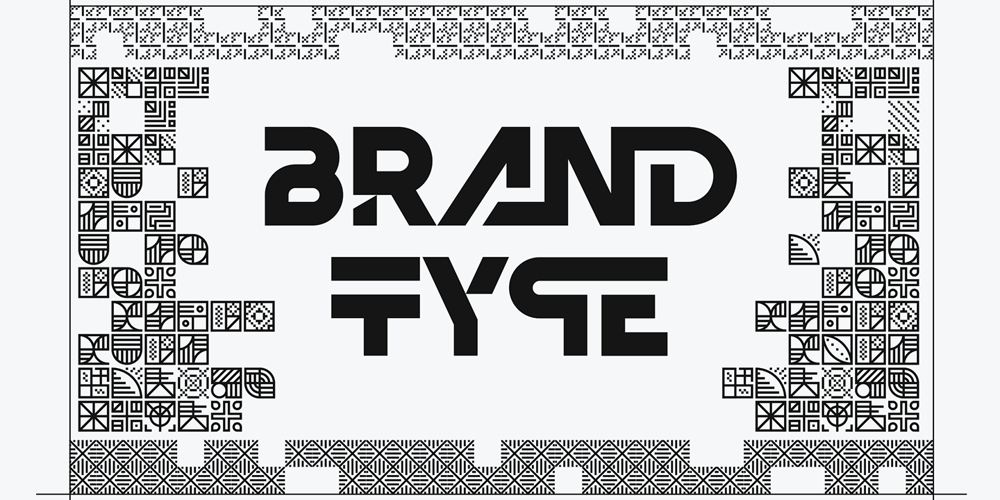
Brand Type
Brand Type font
Brand Type Font Family was designed by Vladimir Fedotov, Plamen Petrov and published by VP Creative Shop. Brand Type contains 3 styles and family package options. Brand Type is a wonderfully versatile and creatively rich logo font that’s sure to make your brand or project stand out. With over 150 ligature glyphs and a wide array of alternate glyphs, it offers endless possibilities for customizing your text.